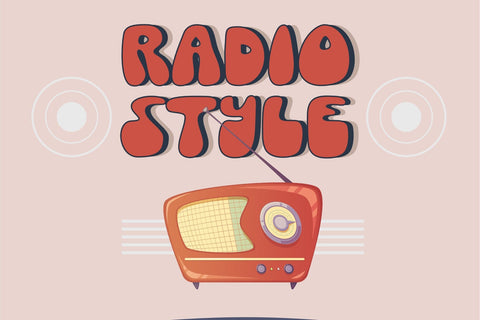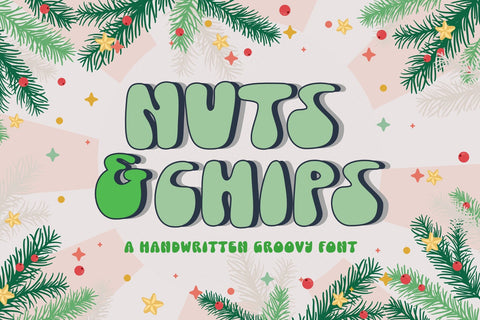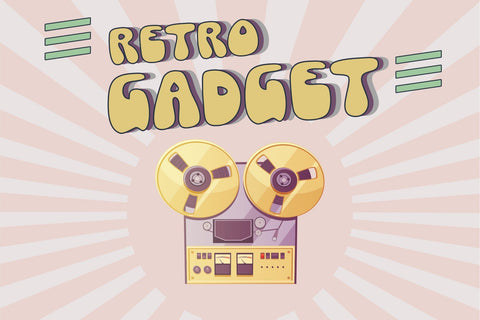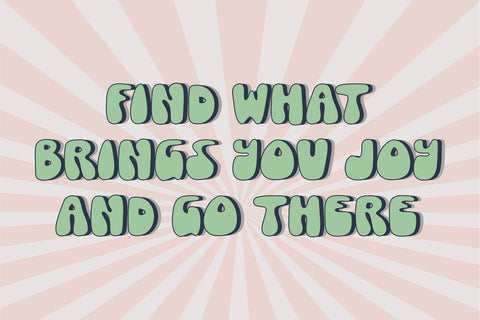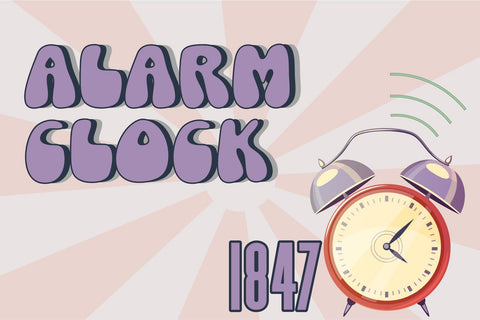
Nuts and Chips | Groovy | Retro | Vintage Font
Nuts and Chips - All Caps Handwritten Groovy Font is a font with distinctive handwritten retro-style characters perfect for branding projects, logos, media posts, advertisements, product packaging, product designs, labels, invitations, stationery, and any project who need handwritten retro.